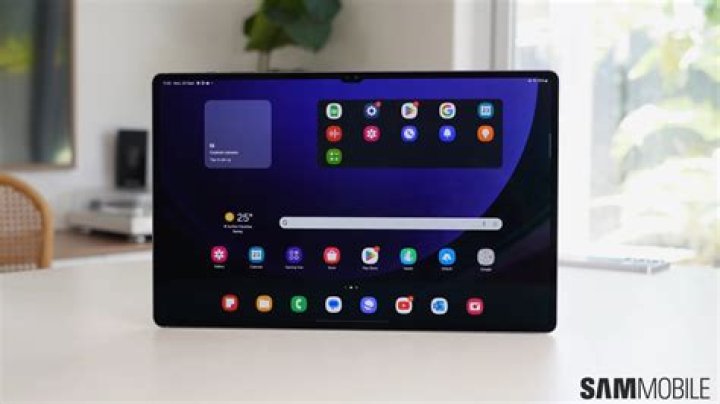
What is the Font of Samsung?
The SamsungOne font appears to resemble more the original Android font, Droid Sans, with more embellishments on the letterforms that the newer Roboto font.
What font does Samsung Galaxy use?
The largest South Korean company making electronics, Samsung, uses the font Helvetica Black with a modification to the “A”.
Here is how to do it: Go to Google Fonts. When you are ready to download selected fonts, click black arrow pointing down in the right upper part of the screen. In the Download fonts window click .zip files link which points to the ZIP file with all the fonts you have previously added to collection.
What is Samsung logo font?
The largest South Korean company making electronics, Samsung, uses the font Helvetica Black with a modification to the “A”. This is a commercial font and is available here: The logo was designed in 1993 by Lippincott Mercer.